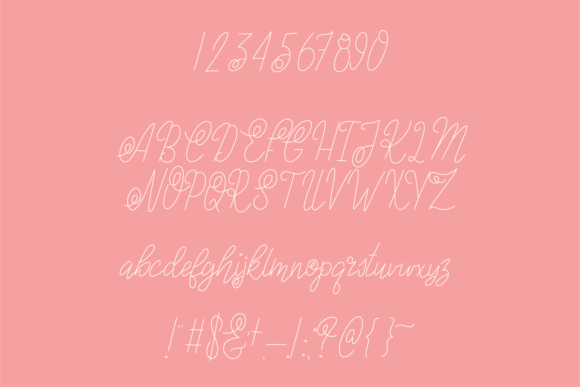
Addie Font: The Perfect Hairline Font for Your Next Crafting Project
Are you looking for a unique and quirky font to add a personal touch to your crafting projects? Look no further than Addie Font, a hairline font specifically designed for scoring, sketch pens, and foil quill projects. In this article, we’ll explore the features and benefits of Addie Font, and how it can elevate your crafting game.
What is Addie Font?
Addie Font is a hairline font that boasts a thin and delicate design, making it perfect for use with cutting machines like Glowforge, Silhouette, or Cricut. Unlike traditional fonts, Addie Font was created with a specific purpose in mind – to provide a solid letter with no pesky center void when used for scoring, sketch pens, or foil quill projects.
The Inspiration Behind Addie Font
Addie Font was created based on the letters of the Ashleigh font, with a unique twist. The font’s designer aimed to create a hairline font that would meet the specific needs of crafters and designers working with cutting machines. The result is a font that is both elegant and quirky, with a charm that sets it apart from more traditional fonts.
Why Addie Font is Perfect for Crafters and Designers
So, why should you choose Addie Font for your next crafting project? Here are just a few reasons:
• Unique Design: Addie Font boasts a unique and quirky hairline design that adds a personal touch to any project.
• Versatility: This font is perfect for a variety of crafting applications, including scoring, sketch pens, and foil quill projects.
• Easy to Use: Addie Font is easy to use with cutting machines like Glowforge, Silhouette, or Cricut, making it accessible to crafters of all levels.
• No Pesky Center Void: The font’s design ensures that it remains solid and void-free, eliminating the frustration of dealing with pesky center voids.
Tips for Using Addie Font
To get the most out of Addie Font, here are a few tips to keep in mind:
• Experiment with Different Sizes: Addie Font looks great in a variety of sizes, so don’t be afraid to experiment and find the perfect size for your project.
• Combine with Other Fonts: Addie Font pairs well with other fonts, so try combining it with your favorite font to create a unique look.
• Use with Different Materials: Addie Font works well with a variety of materials, including paper, vinyl, and foil.
Please note that Addie Font may look off in font previewers due to its unique design and the way it was created specifically for scoring, sketch pens, and foil quill projects, not for print. This is normal and does not affect the font’s performance when used with cutting machines.
Addie Font is a unique and versatile hairline font that is perfect for crafters and designers looking to add a personal touch to their projects. With its easy-to-use design and versatility, Addie Font is sure to become a favorite among crafters and designers. Whether you’re working with Glowforge, Silhouette, or Cricut, Addie Font is the perfect choice for your next scoring, sketch pens, or foil quill project.